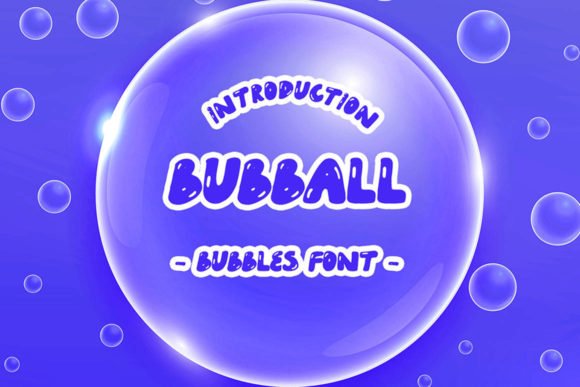
That’s where the Bubball Font comes in – a cute and bubbly display font that’s sure to add some whimsy and personality to your work. Whether you’re creating a social media graphic, a children’s book, or a wedding invitation, this font is the perfect addition to make your design truly special.
So why is the Bubball Font so valuable to designers? Not only does it add a touch of playfulness and fun, but it’s also versatile and easy to use. With its bubbly and rounded design, it’s perfect for adding a lighthearted and approachable feel to your work.
Bubball Font Key Features
- Font Style: A unique, playful, and rounded sans-serif font designed to evoke a sense of fun and approachability.
- Kerning and Ligatures: Includes advanced kerning and ligature pairs for improved readability and aesthetic appeal.
Bubball Font Review
At first glance, Bubball Font is an eye-catching and playful font. The ✨ rounded edges and soft curves make it perfect for creating a whimsical atmosphere in designs. It’s great for projects that need a touch of fun and personality, such as children’s books, greeting cards, or social media graphics.
- ✨ The font is highly customizable, making it easy to adjust the size, color, and spacing to fit any design.
- ✨ Bubball Font is a great choice for creating text-based graphics, as the rounded edges help to soften the overall look.
- ✨ The font is available in a variety of styles, including bold and italic, which adds to its versatility.
However, there are some limitations to consider ⚠️. The font may not be suitable for formal or professional projects, as it can come across as too playful or immature. Additionally, the font may not be as legible at smaller sizes, which can make it difficult to read in certain contexts.
Overall, I think Bubball Font is a great addition to any designer’s toolkit. While it may have some limitations, its versatility and customization options make it a valuable resource for creating a wide range of designs. With the right project, Bubball Font can be a real showstopper.
Tips for Getting the Most Out of Bubball Font
To get the most out of the Bubball font, use it in conjunction with bold or italic styles to add emphasis to your text. You can also use it in combination with other fonts to create a unique and playful design.
The Bubball font is ideal for use in creative and playful designs, such as children’s book illustrations, party invitations, and social media graphics. It’s also great for use in headings and titles to add a touch of whimsy and fun.
Alternatives to “Bubball Font” for Designers
Pacifico is a beautiful, elegant script font that is perfect for creating a sophisticated and luxurious feel in designs. It is ideal for use in wedding invitations, luxury brand logos, and high-end advertising campaigns. Compared to Bubball Font, Pacifico has a more refined and polished look, making it suitable for more formal and professional applications.
Great Vibes is a modern, handwritten font that is great for creating a friendly and approachable feel in designs. It is ideal for use in social media graphics, blog posts, and marketing materials. Compared to Bubball Font, Great Vibes has a more relaxed and casual tone, making it suitable for a wide range of applications, from casual branding to advertising campaigns.